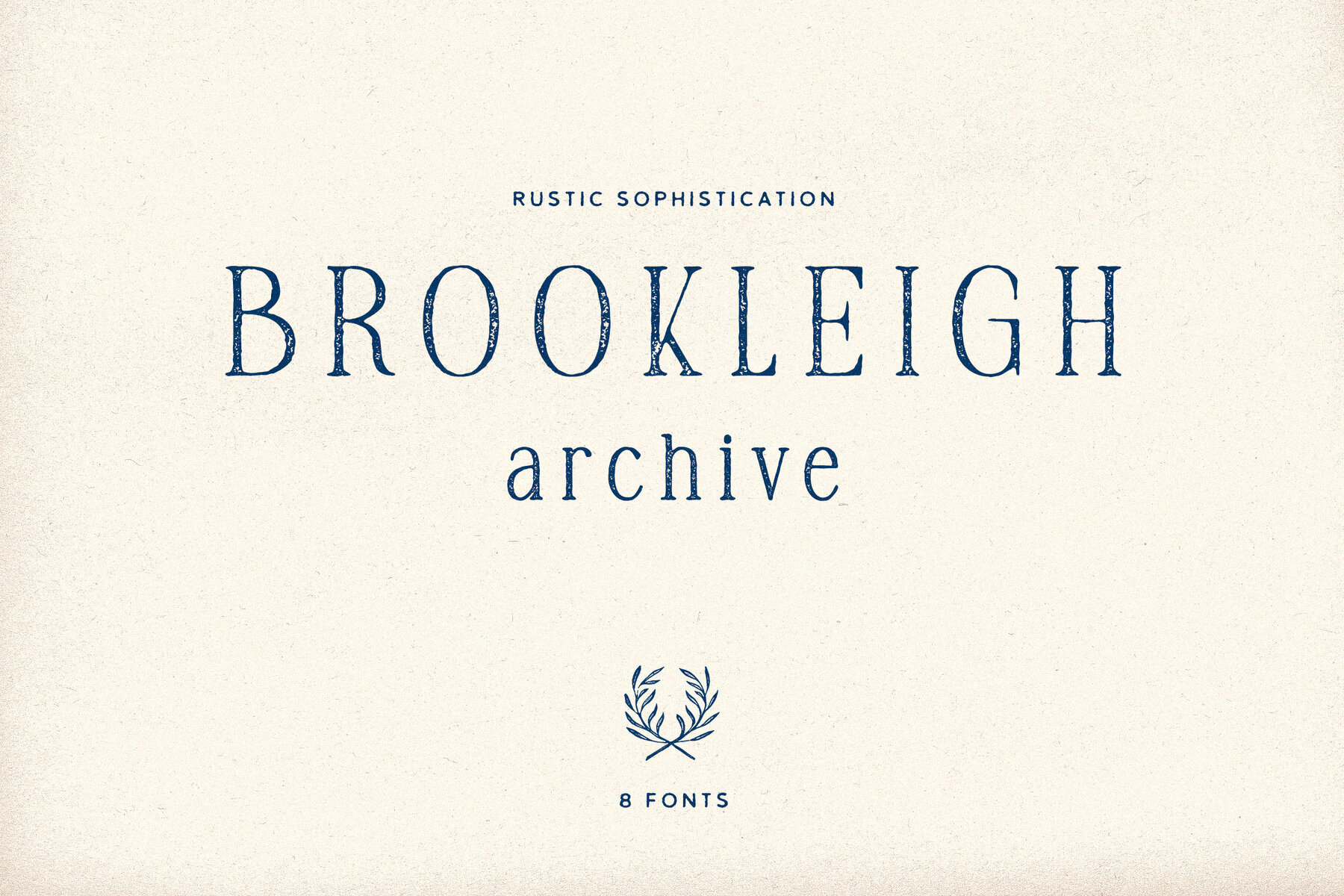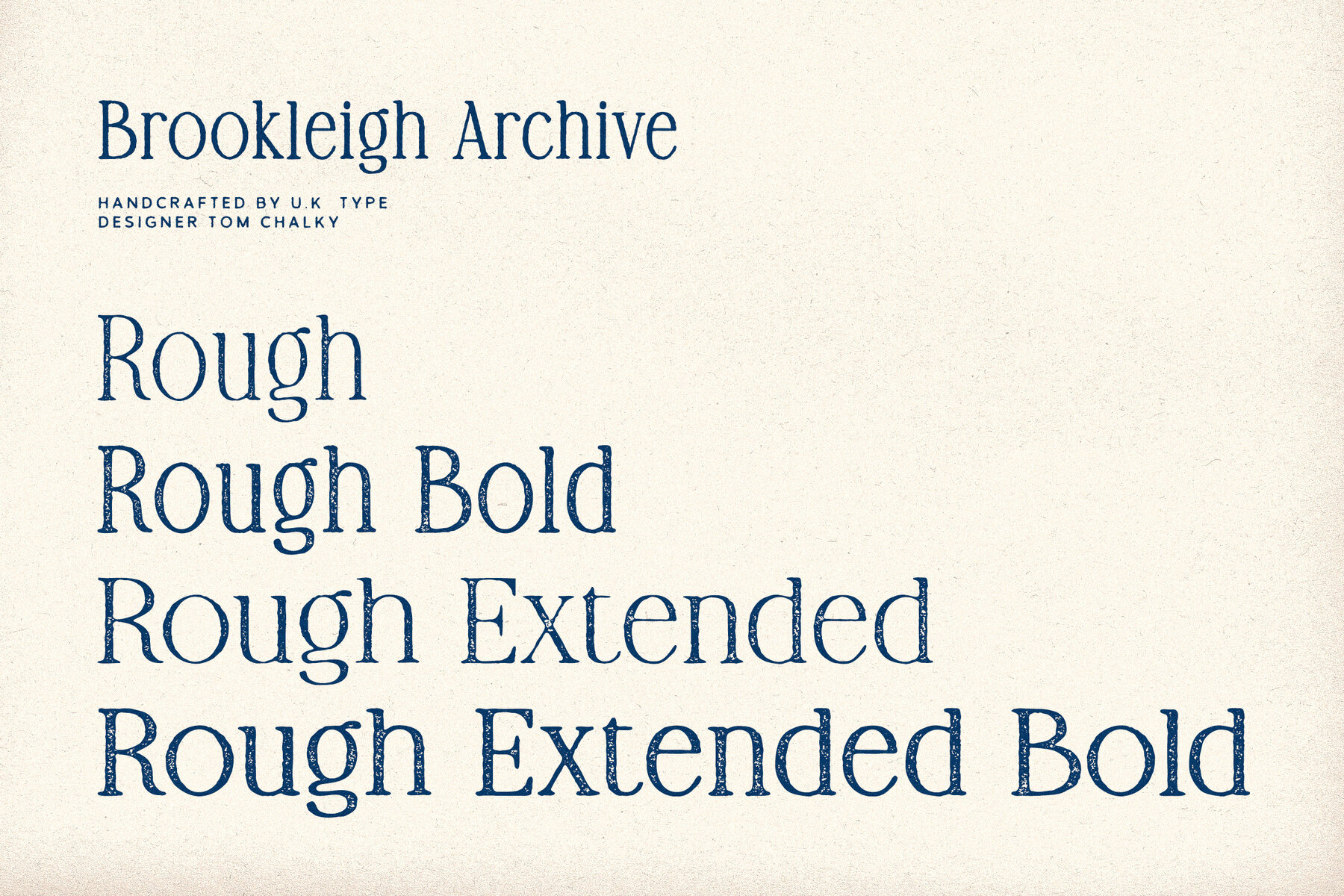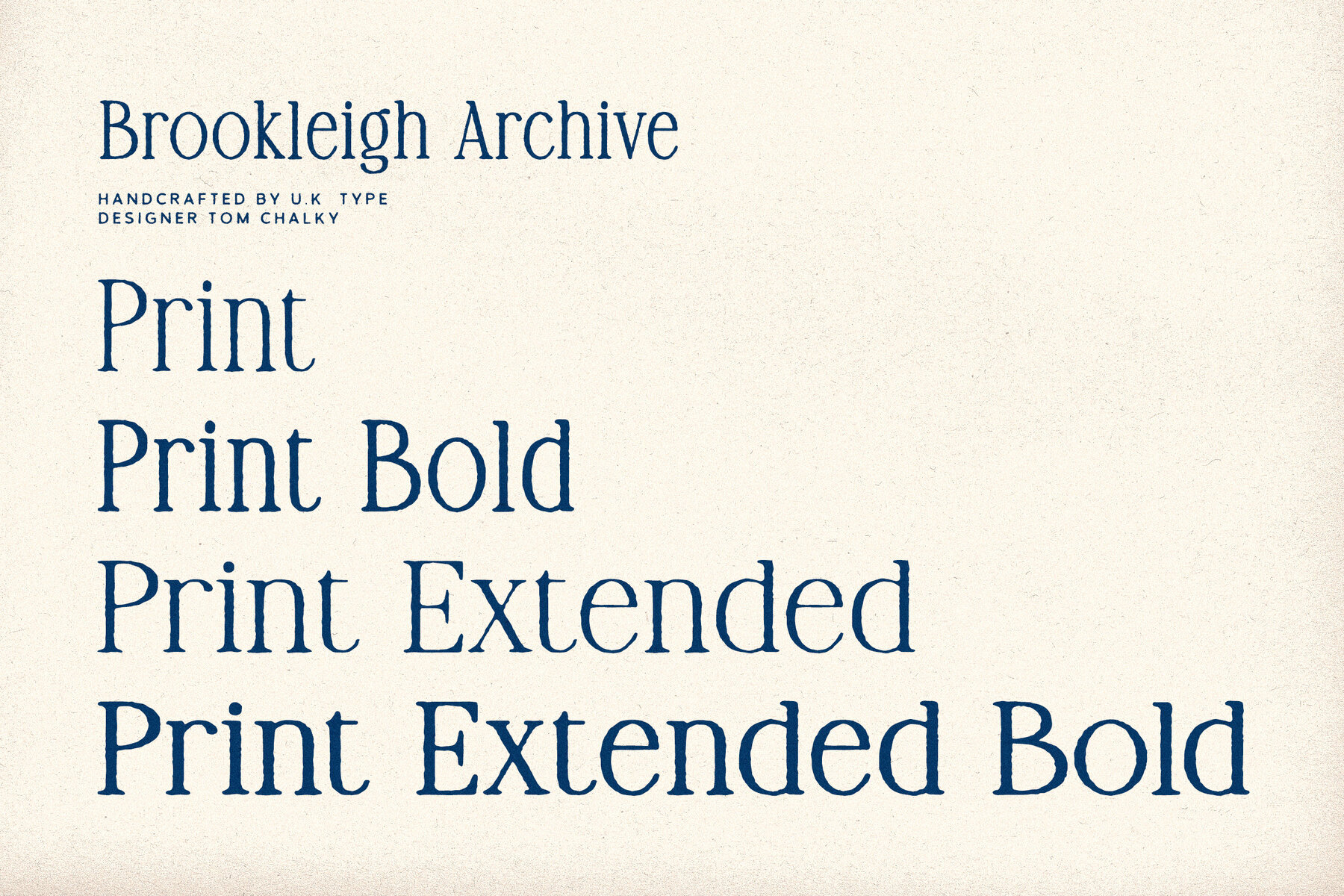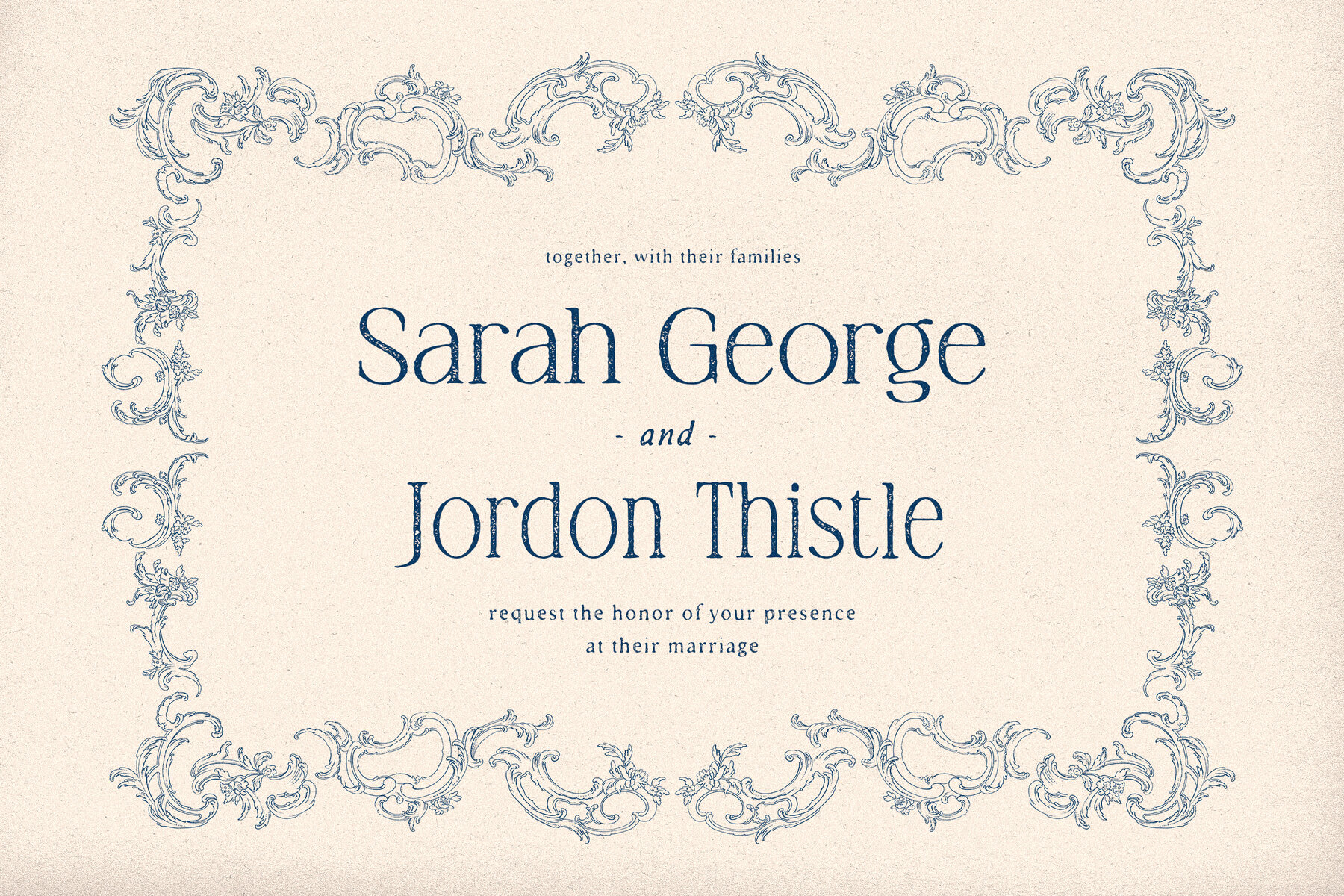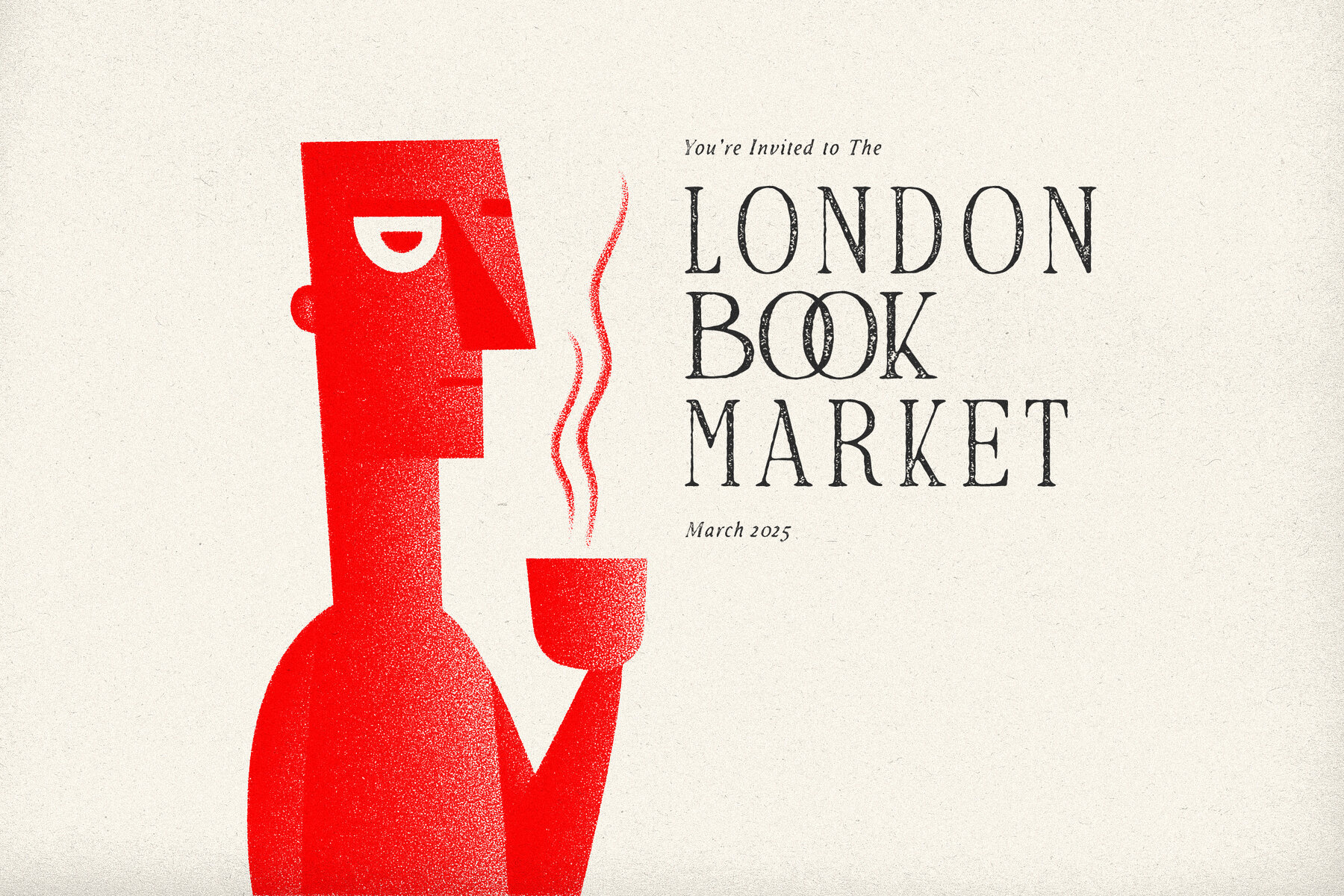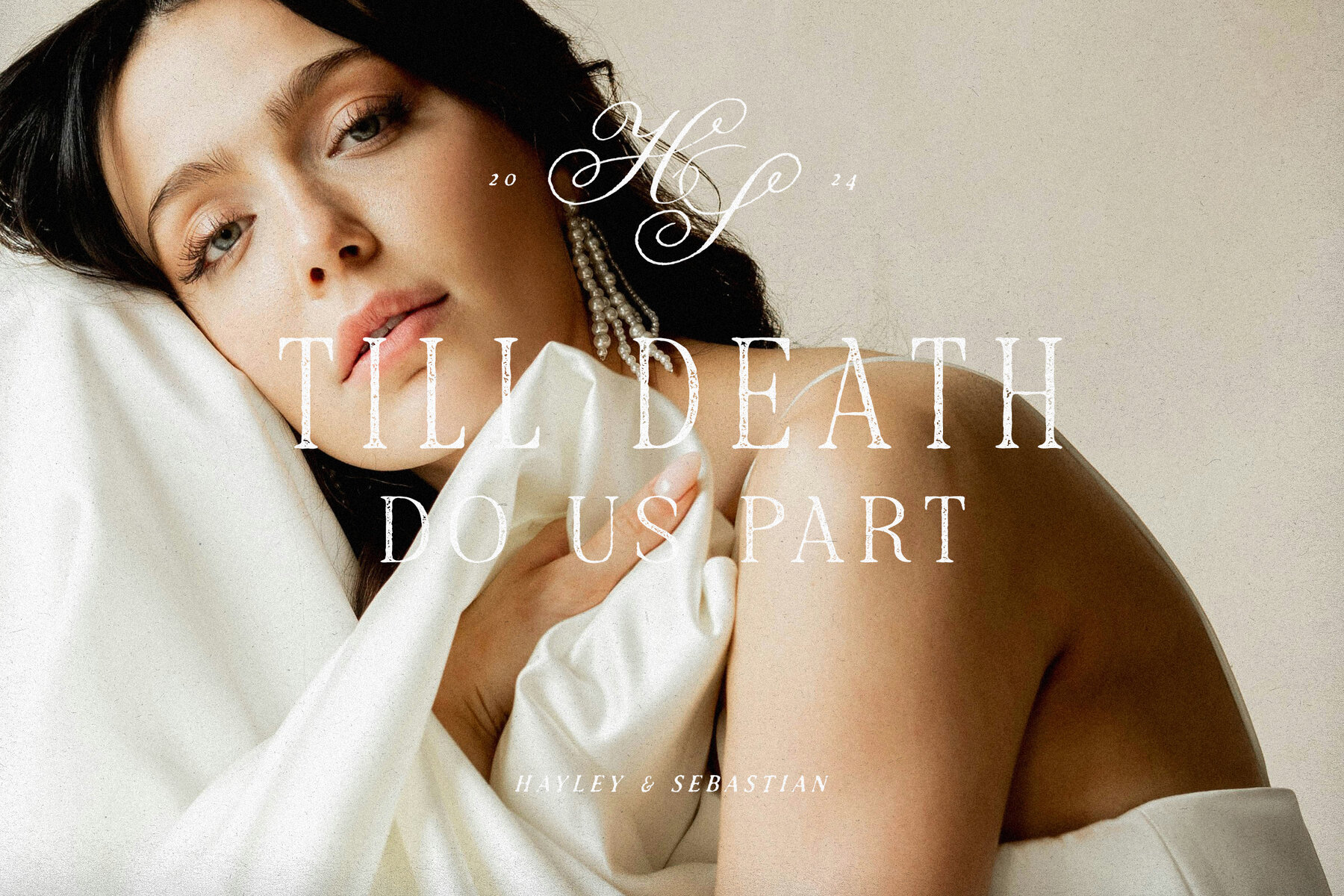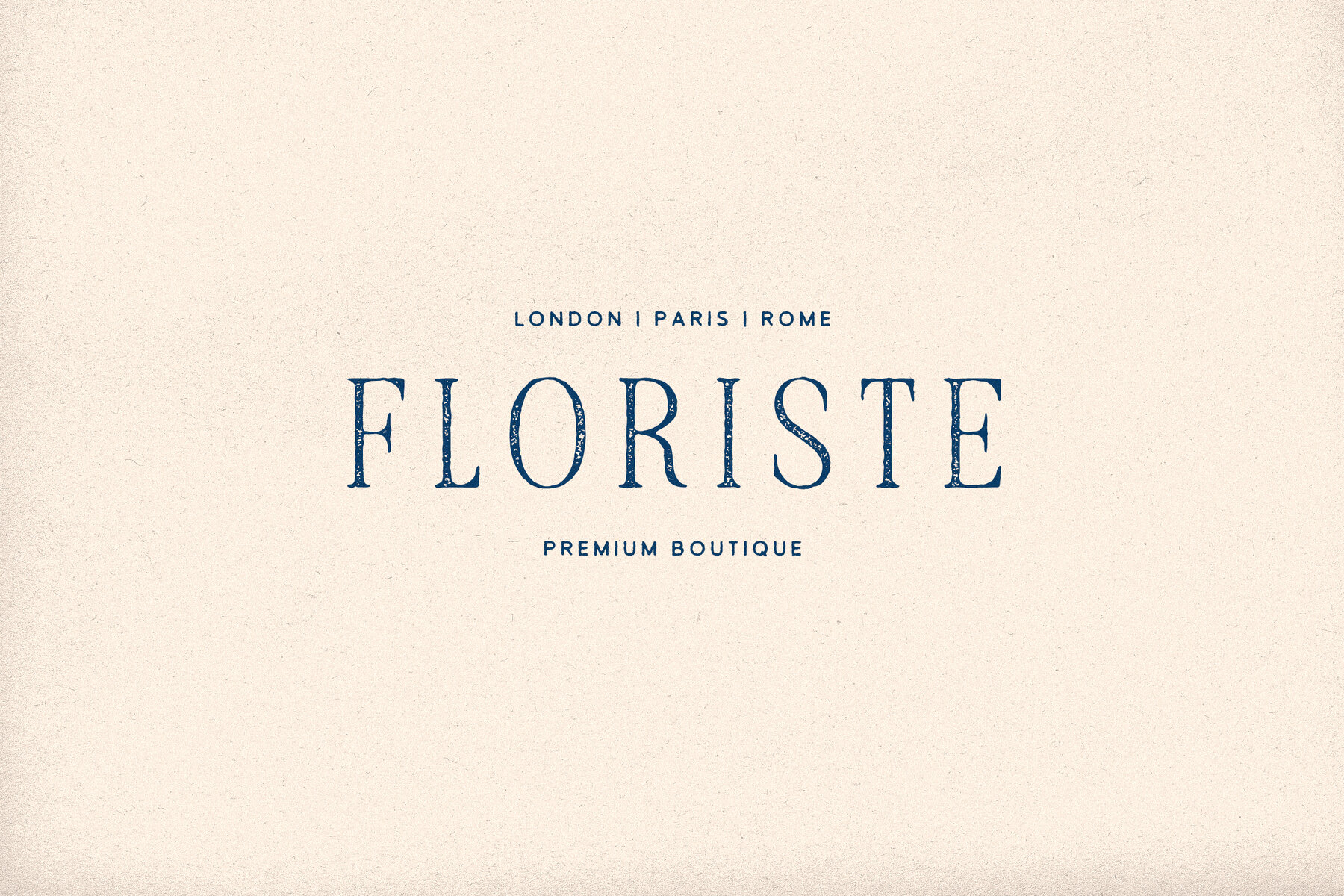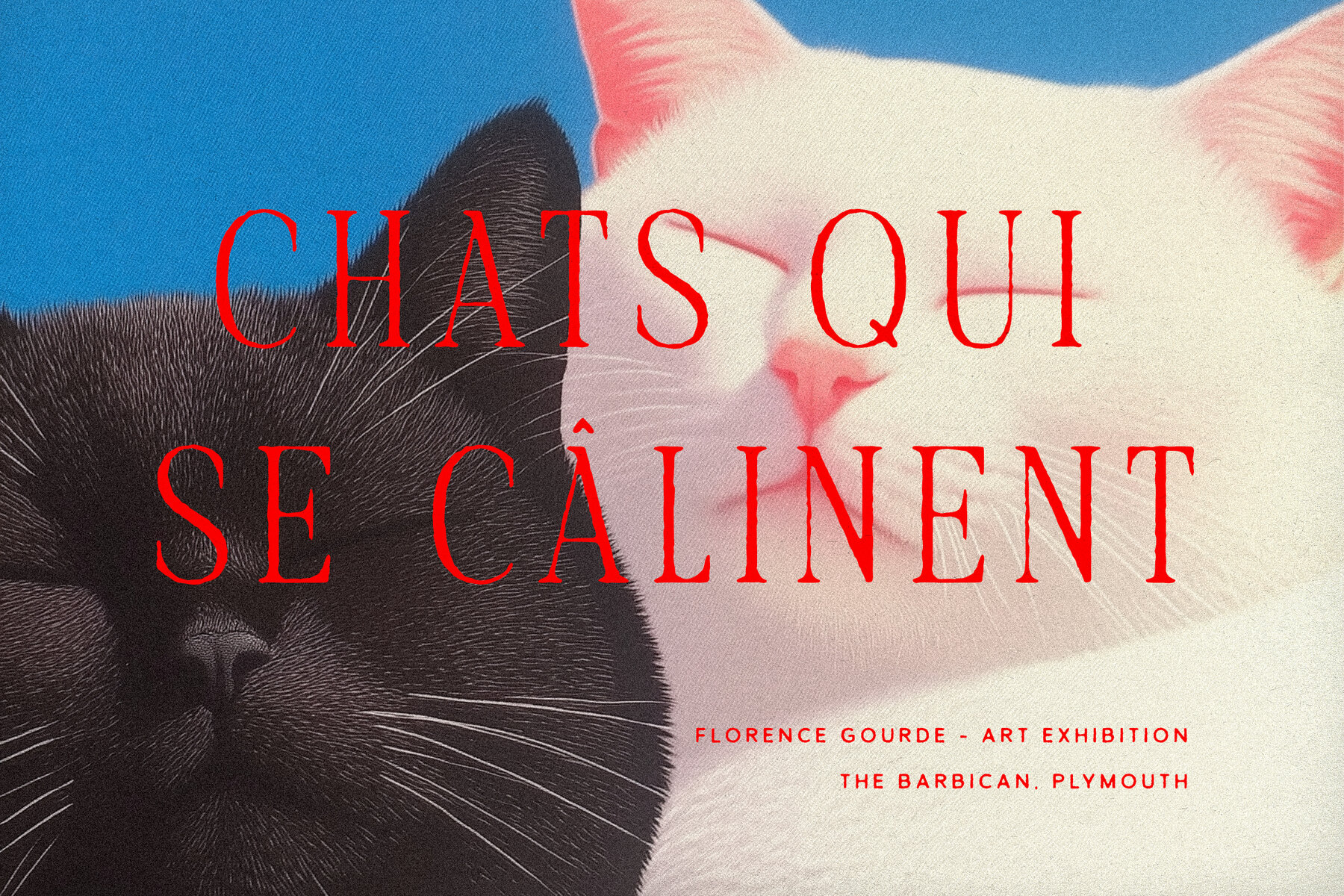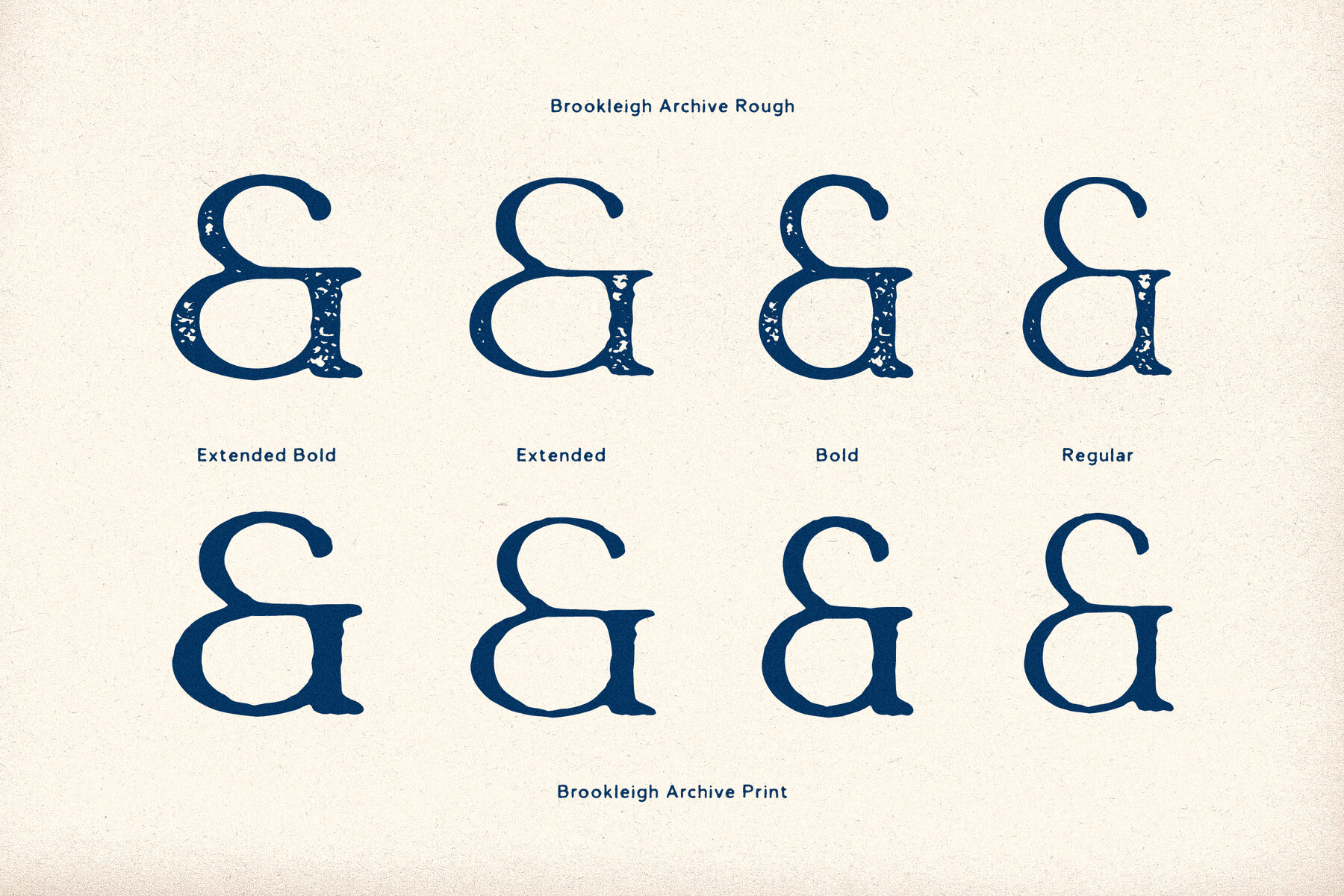
TC Brookleigh Archive Font
Brookleigh Archive – where rustic charm meets refined sophistication. This versatile font family is perfect for projects seeking a touch of authenticity and elegance, whether it’s for wedding invitations, logos, branding, packaging, and more. Brookleigh Archive builds upon the original Brookleigh font, adding a fresh twist and unlocking new creative possibilities. What’s Inside: – TC Brookleigh Archive Print: Non-textured fonts with a subtly rough edge. This set offers a clean, printed look. Available in regular, bold, extended regular, and extended bold styles. – TC Brookleigh Archive Rough (my personal favorite): These textured beauties bring a wonderfully aged, printed effect that exudes character and charm. Also available in four styles: regular, bold, extended, and extended bold. – All fonts are multilingual covering the following glyphs: Basic Latin, Western European, Euro, Catalan, Baltic, Turkish, Central European, Romanian, Pan African Latin, Dutch, and Afrikaans